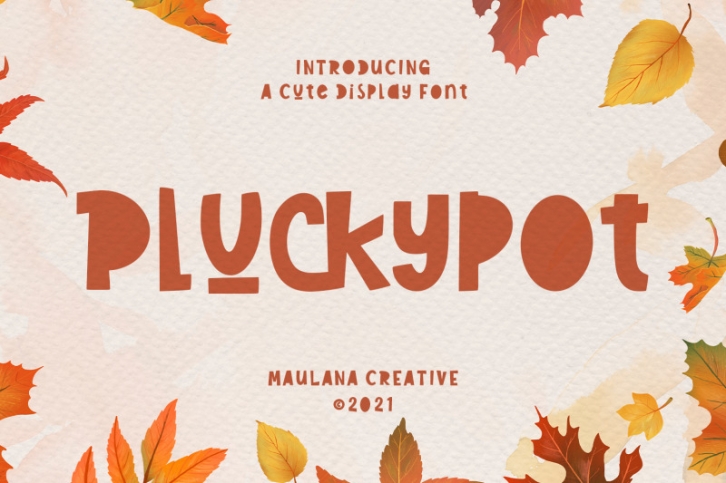
Pluckypot Cute Display Font Download
Pluckypot is a decorative handwritten display font. With pencil effect stroke, fun character with a bit of ligatures. To give you an extra creative work. Pluckypot font support multilingual more than 100+ language. This font is good for logo design, Social media, Movie Titles, Books Titles, a short text even a long text letter and good for your secondary text font with Script or Handwrittens. Make a stunning work with Pluckypot font.